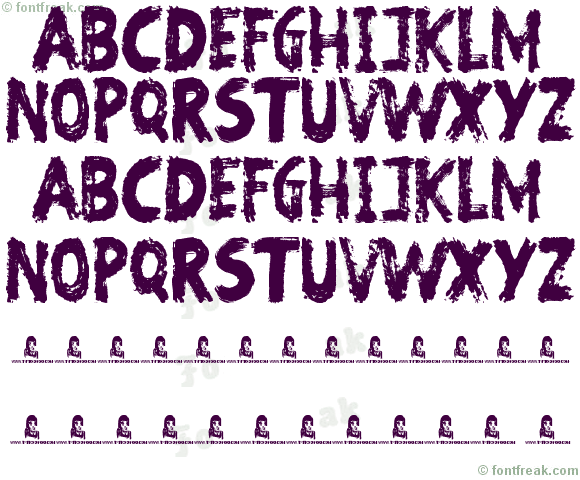
Beware of the Zombies
Beware of the Zombies, designed by Jonathan S. Harris, is a distinctive display font that captures attention with its unique, playful character. This font falls into the decorative category, perfectly suited for projects that require a bold statement. The visual style of Beware of the Zombies features irregular stroke weights and a rugged texture, mimicking the distressed look often associated with horror-themed designs. The uneven spacing between letters adds to its quirky charm, making it an excellent choice for capturing a fun, yet slightly eerie vibe.
This font is particularly ideal for a variety of creative applications. It shines in the realm of Halloween-themed decorations, making it a great choice for party invitations and promotional materials. Graphic designers can use it for movie posters, especially those in the horror genre, where it can enhance the overall visual impact. Additionally, Beware of the Zombies is perfect for merchandise like t-shirts or posters that embrace a playful, spooky aesthetic. Small business owners in the entertainment or gaming industries will also find it valuable for branding purposes, as it effectively communicates a sense of fun and excitement.
Target audiences for this font include graphic designers, content creators, and small business owners looking to add a unique twist to their projects. The playful yet slightly ominous tone of Beware of the Zombies makes it versatile for various creative endeavors.
What sets the Beware of the Zombies font apart is its ability to combine whimsy with a touch of horror, making it a memorable choice for any project. Its free availability as a Beware of the Zombies font free download further enhances its appeal, allowing creatives to incorporate this striking typeface without any barriers.